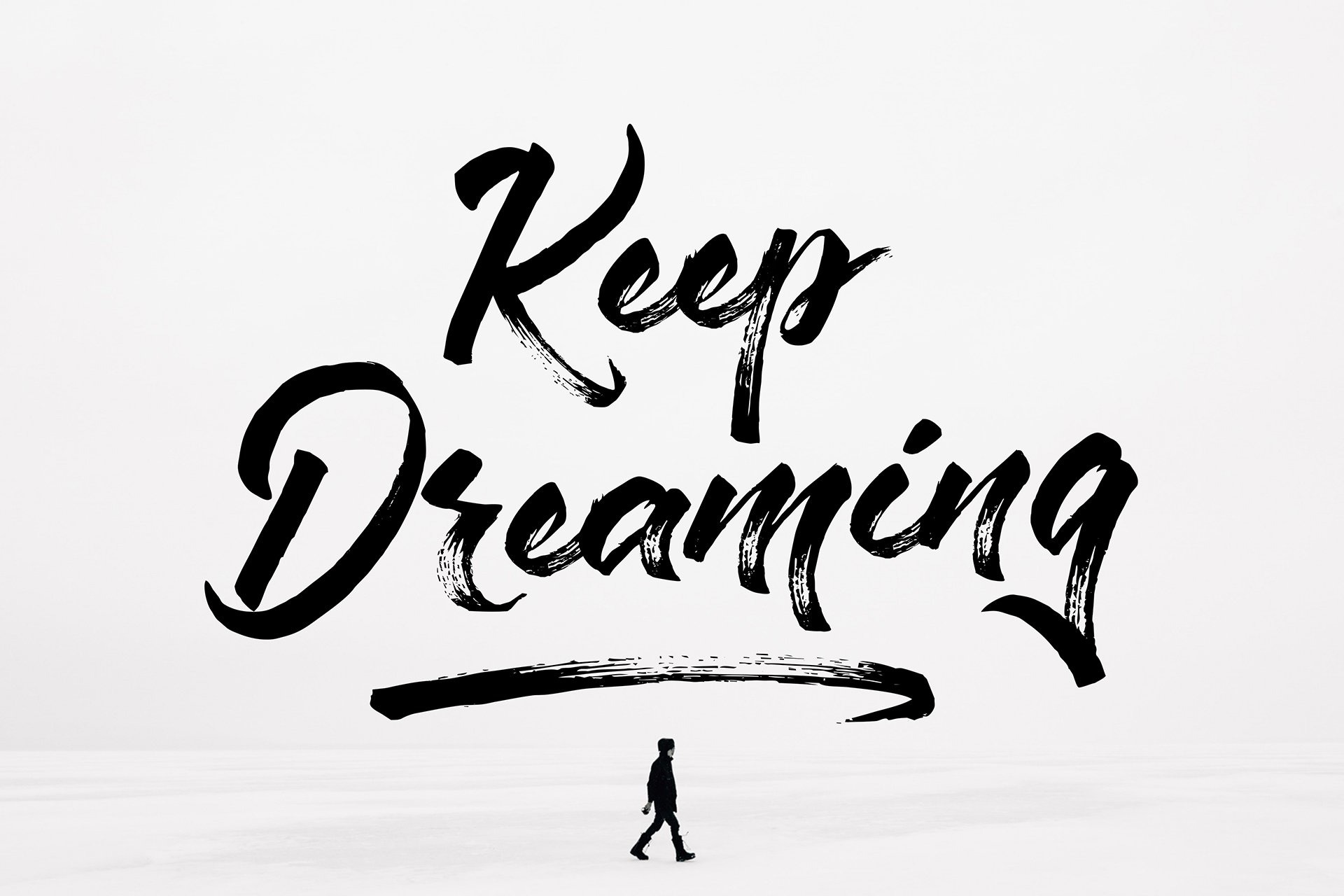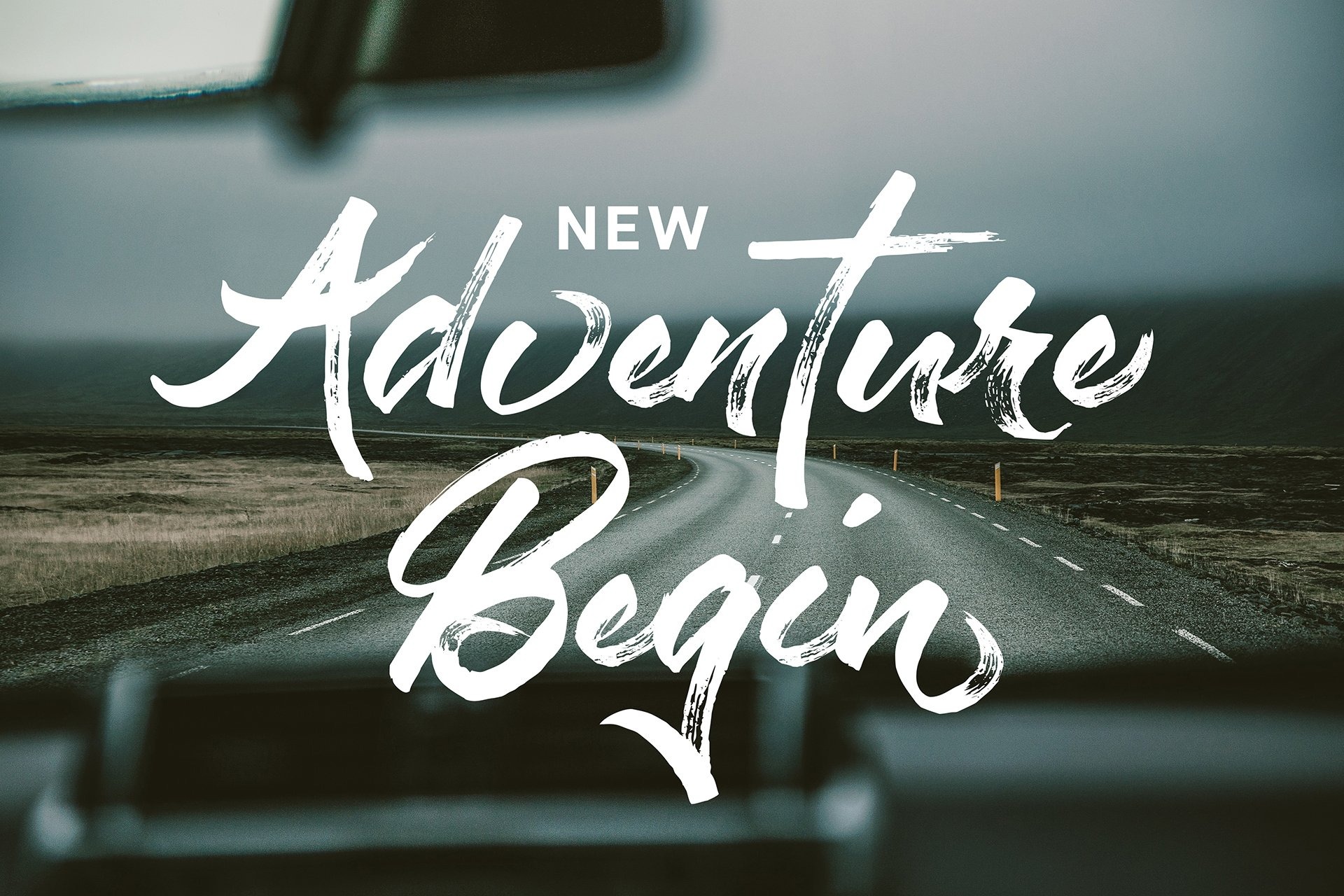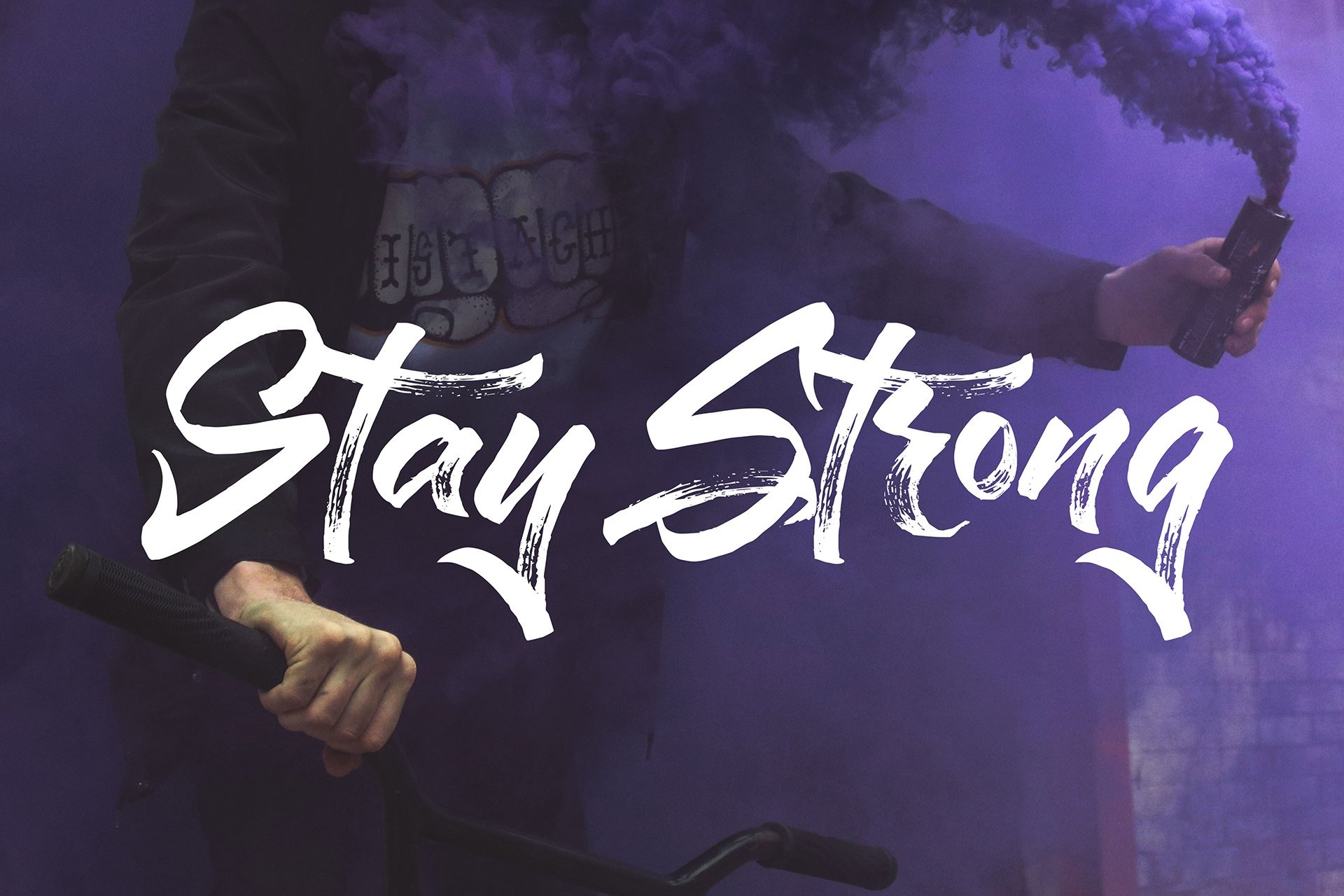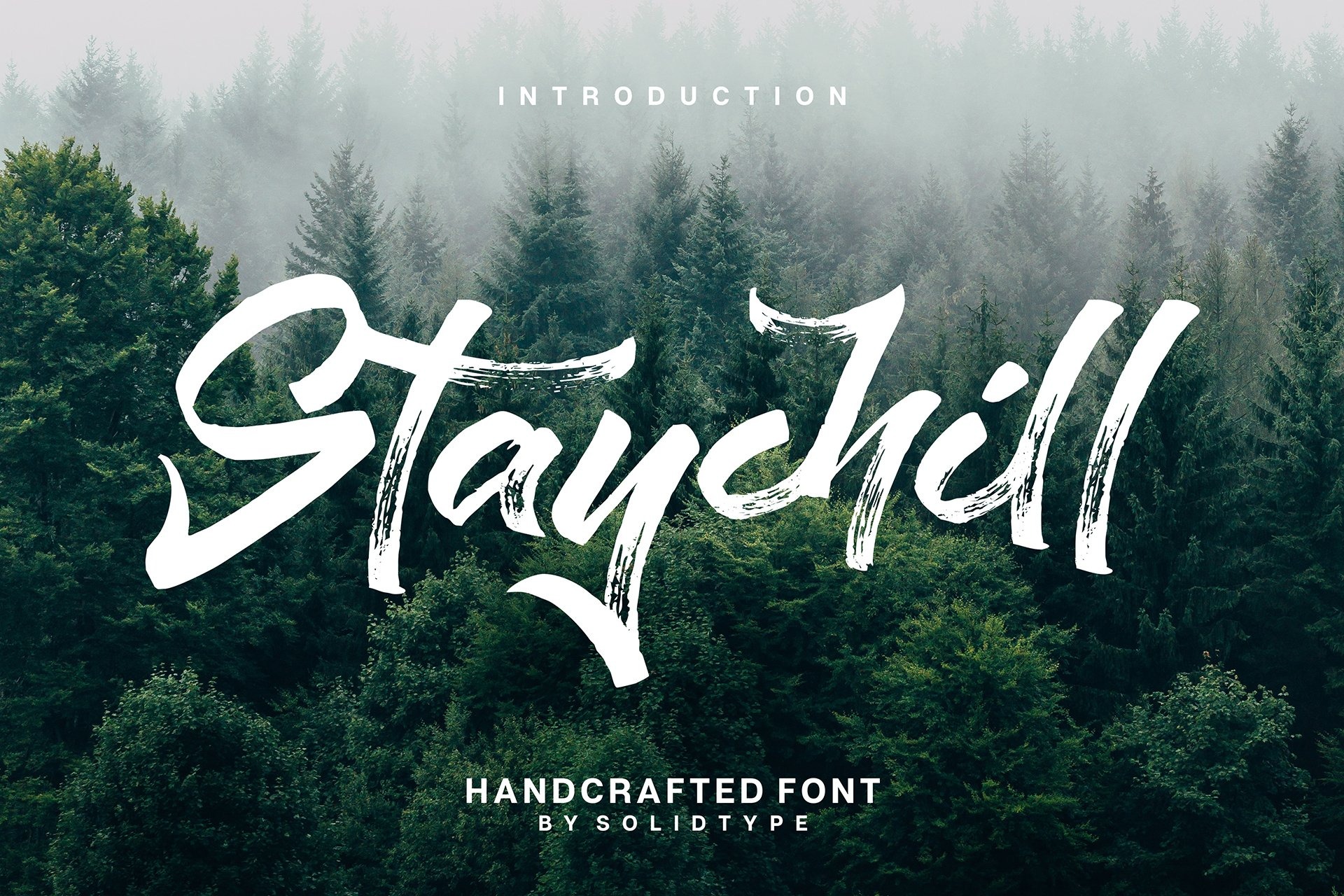
Stay Chill Brush Font is a modern brush font, organic, dynamic, and energetic. This gives such an authentic and rustic look to any design, and is perfect for giving your creative projects a warm and homey feel. This font can be used for various purposes such as titles, logos, correspondence, wedding invitations, letterheads, signages, labels, badges, posters, bulletins, and more.